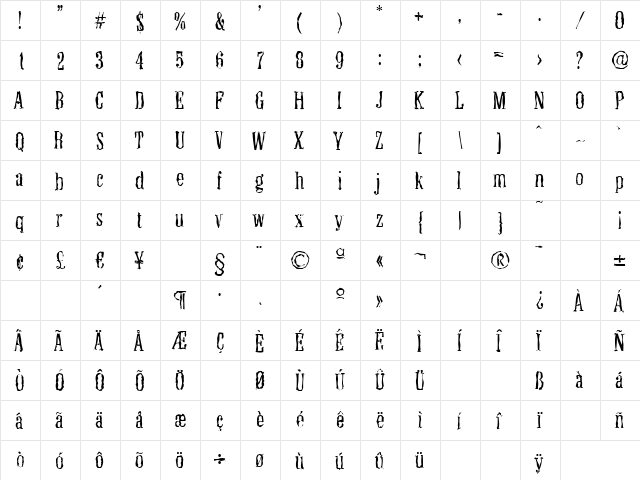
RobertBeckerRandom-Light Regular
Design Context for RobertBeckerRandom-Light Typeface
RobertBeckerRandom-Light takes a measured approach to typography — its balanced proportions and neutral character make it a reliable workhorse for both digital and print work. Its slender proportions lend an understated elegance to any composition.